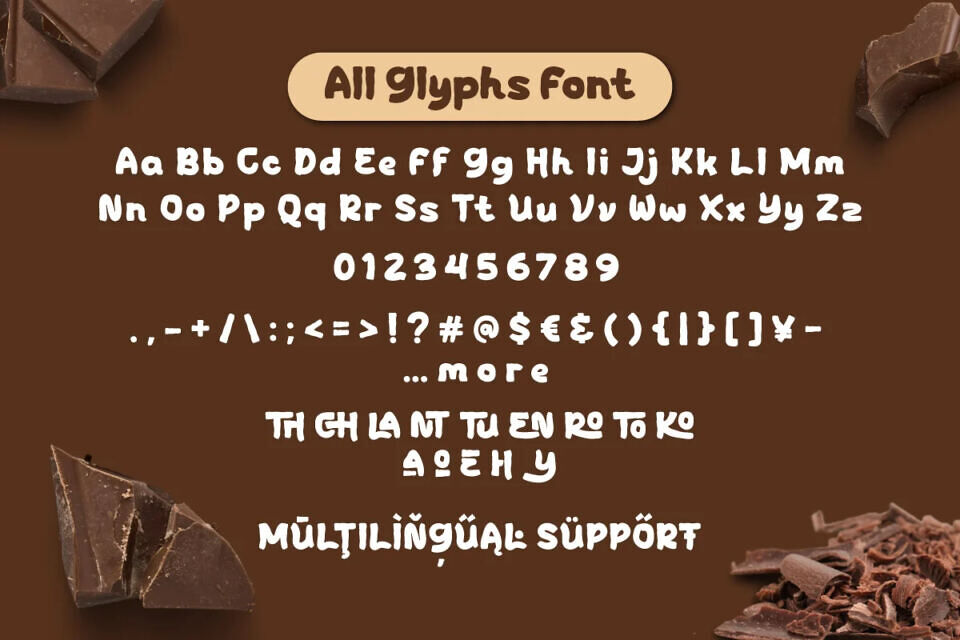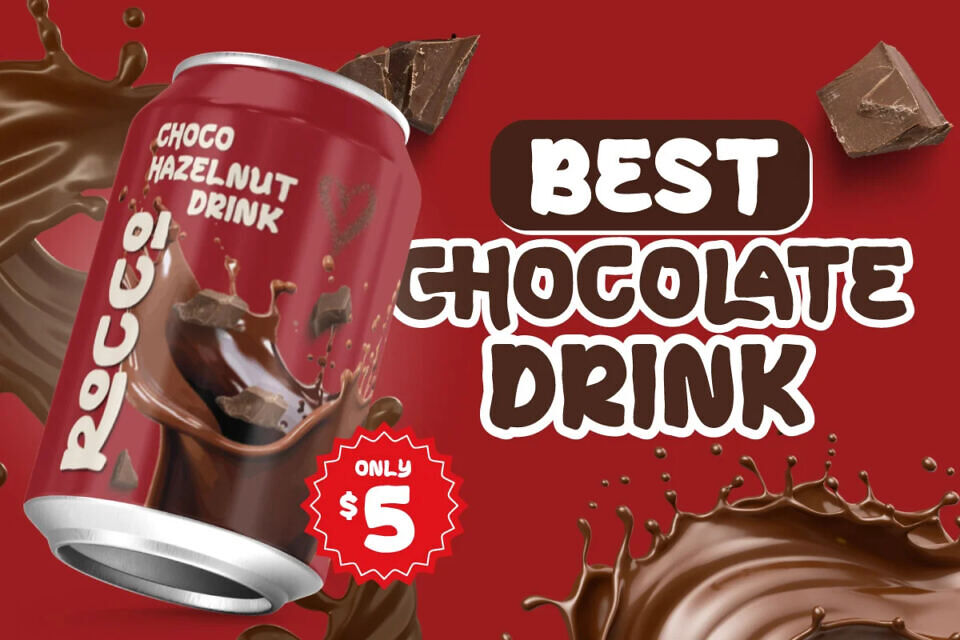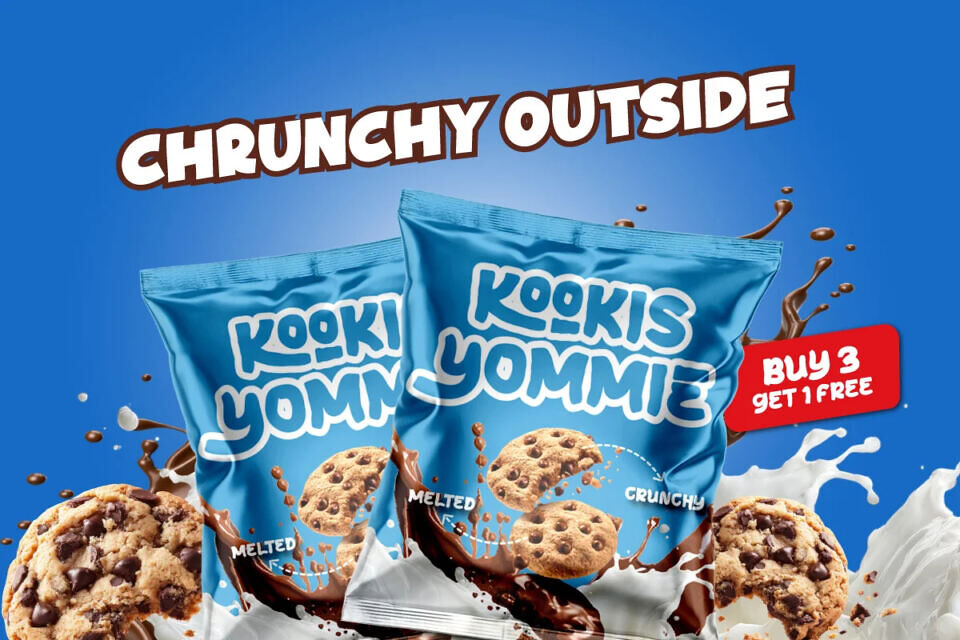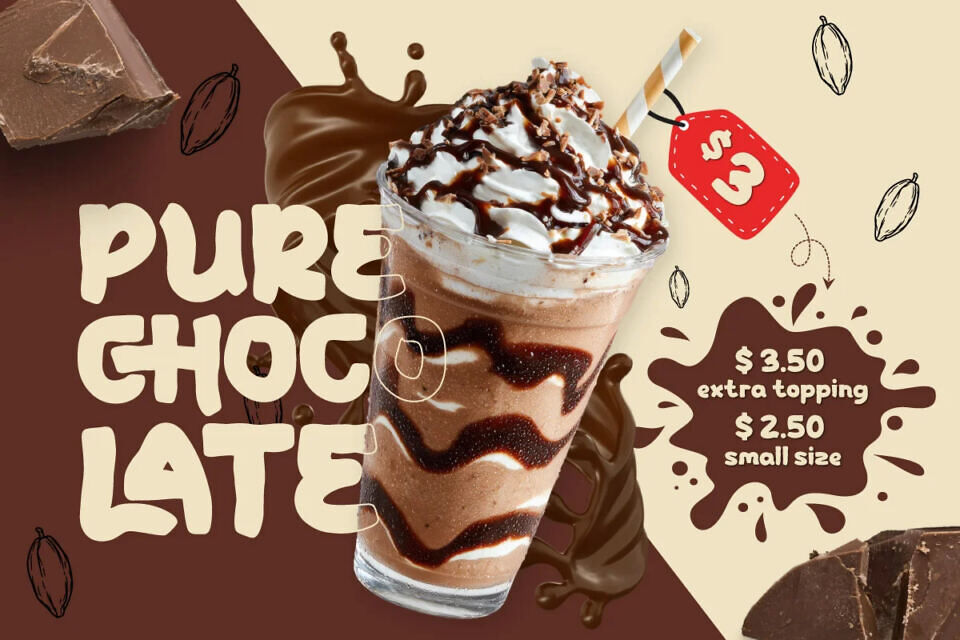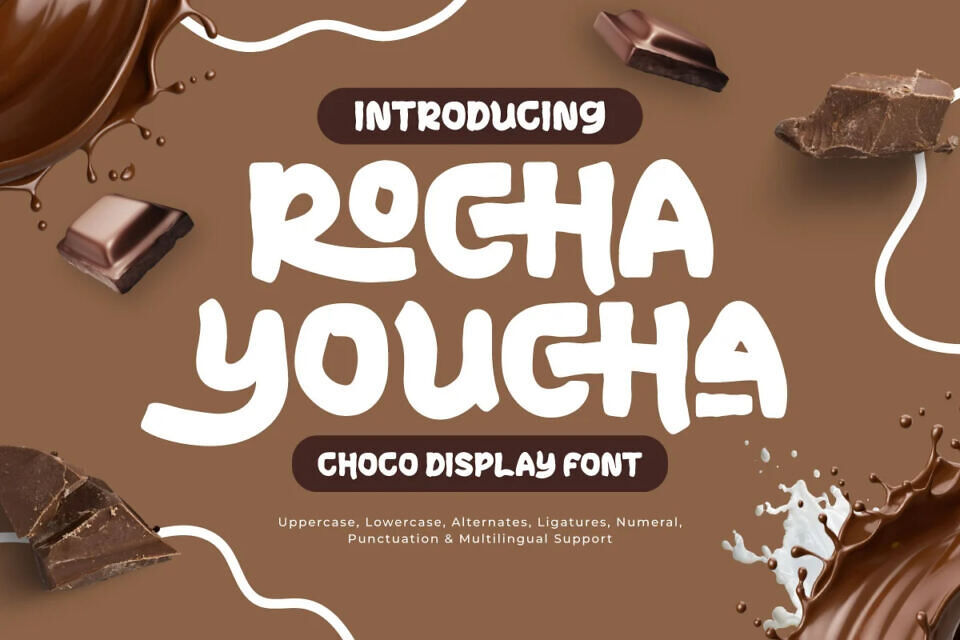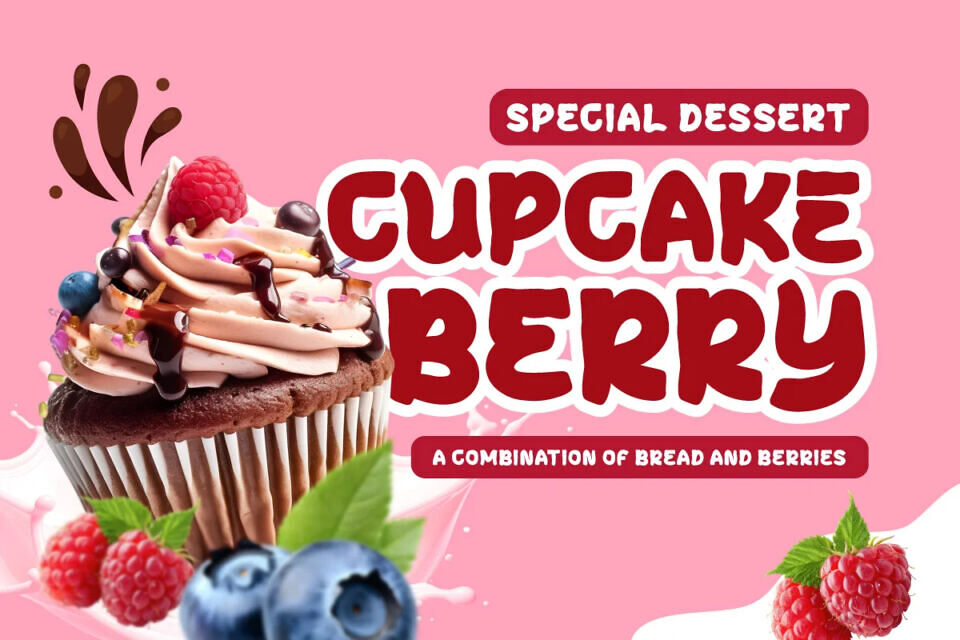
Rocha Youcha Font
Rocha Youcha is a Choco Display Font typeface designed to enhance the visual appeal of products within the F&B (Food & Beverage) industry. Featuring ultra-rounded and bold letterforms, this font represents the soft texture of chocolate and sweet treats, creating a friendly and appetizing impression for consumers in the Snack & Confectionery sector.
As a culinary typography solution, Rocha Youcha is equipped with ligatures and alternates that provide creative flexibility for bakery logos, promotional posters, and social media content. Its ability to create “delicious” visuals makes it an essential asset for strengthening daily product branding.